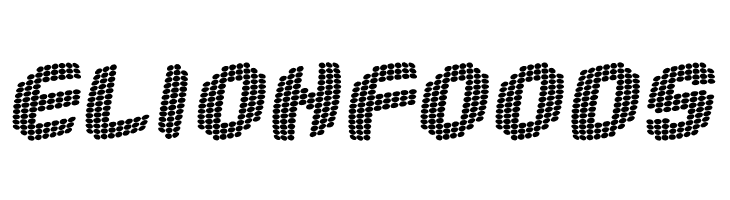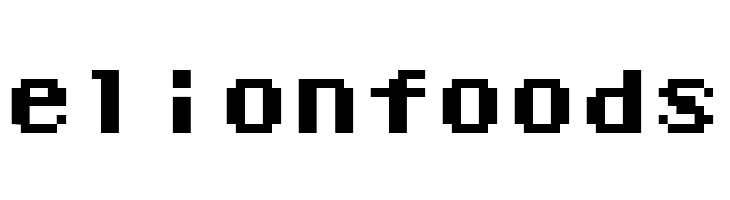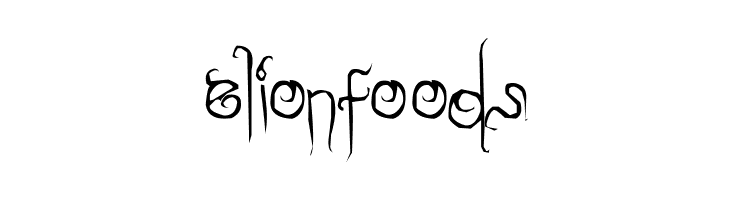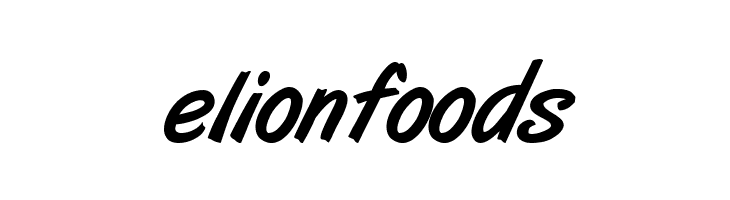
A futuristic dot matrix font with a digital, pixelated style.
( Fonts by www.tepidmonkey.net )
A bold, pixelated font with a retro digital style.
( Fonts by SnailFonts )
An artistic and whimsical font with elongated, curved strokes and a gothic flair.
( Font by Gary D. Jessey )
A bold, brush-style font with dynamic, hand-painted strokes.